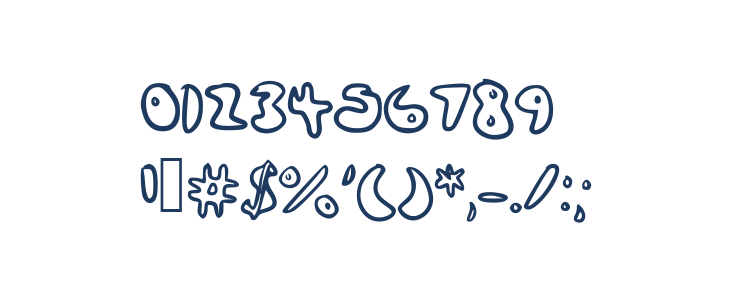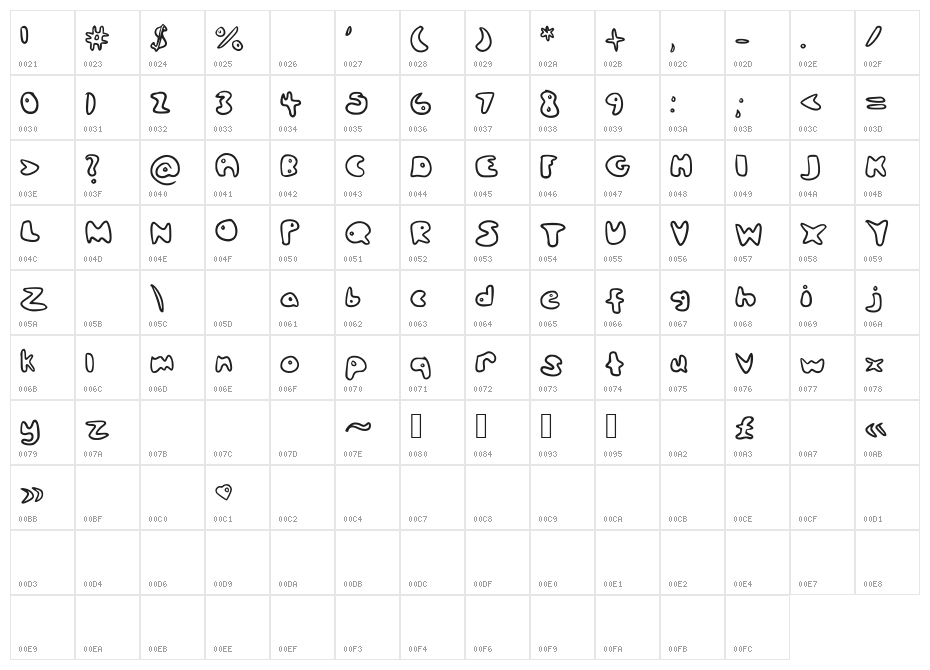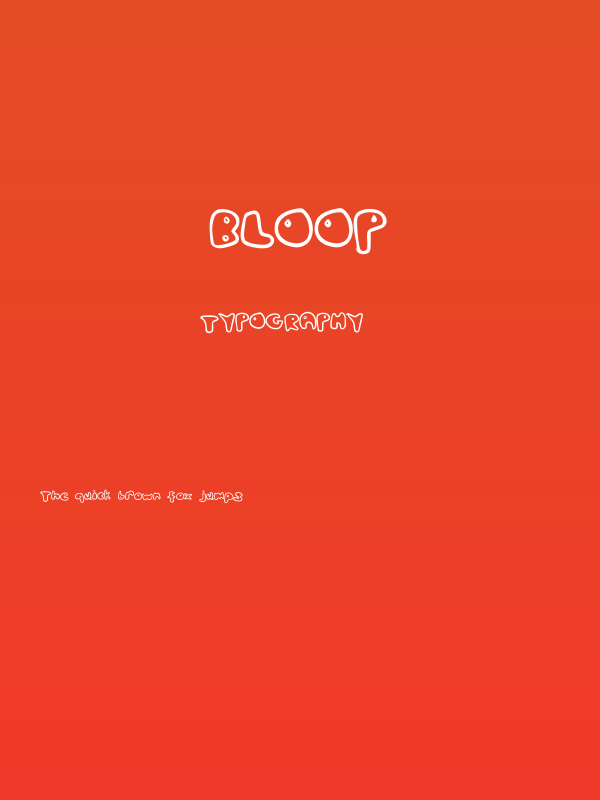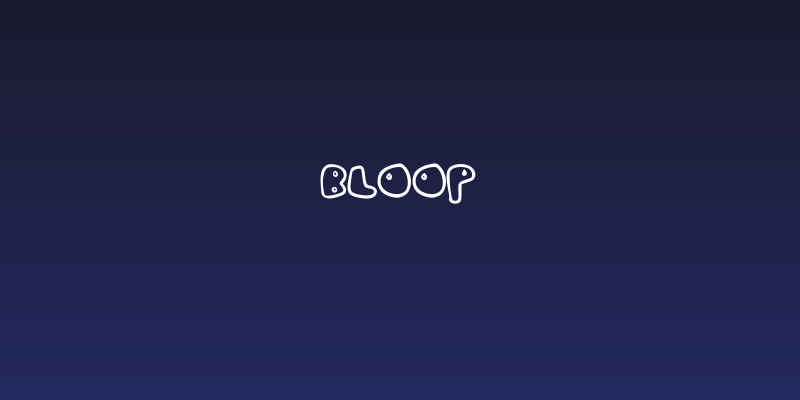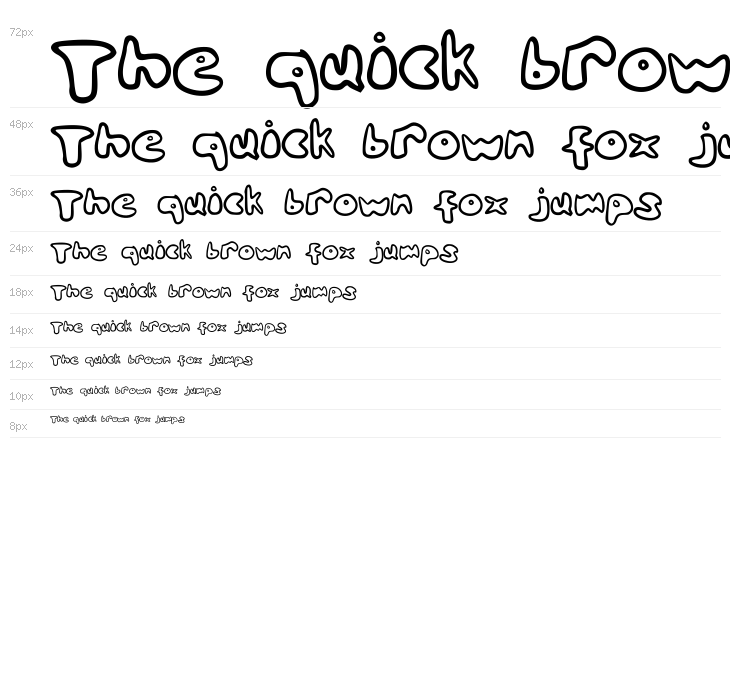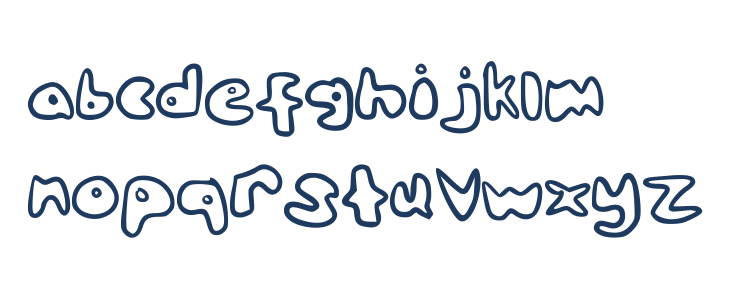
Bloop Font
Bloop Description
This playful and whimsical font features bold, rounded characters with a bubbly outline that gives it a cartoonish and fun appearance. The letters are irregularly shaped, adding a sense of movement and energy. The font is highly decorative, with a hand-drawn feel that makes it stand out. It includes both uppercase and lowercase letters, numbers, and a variety of special characters, all maintaining the same lively style. The overall look is informal and friendly, making it ideal for projects that require a touch of humor and creativity.
| Proposed Projects | Ideal for children's books, comic strips, playful branding, party invitations, and any project needing a fun, informal touch. |